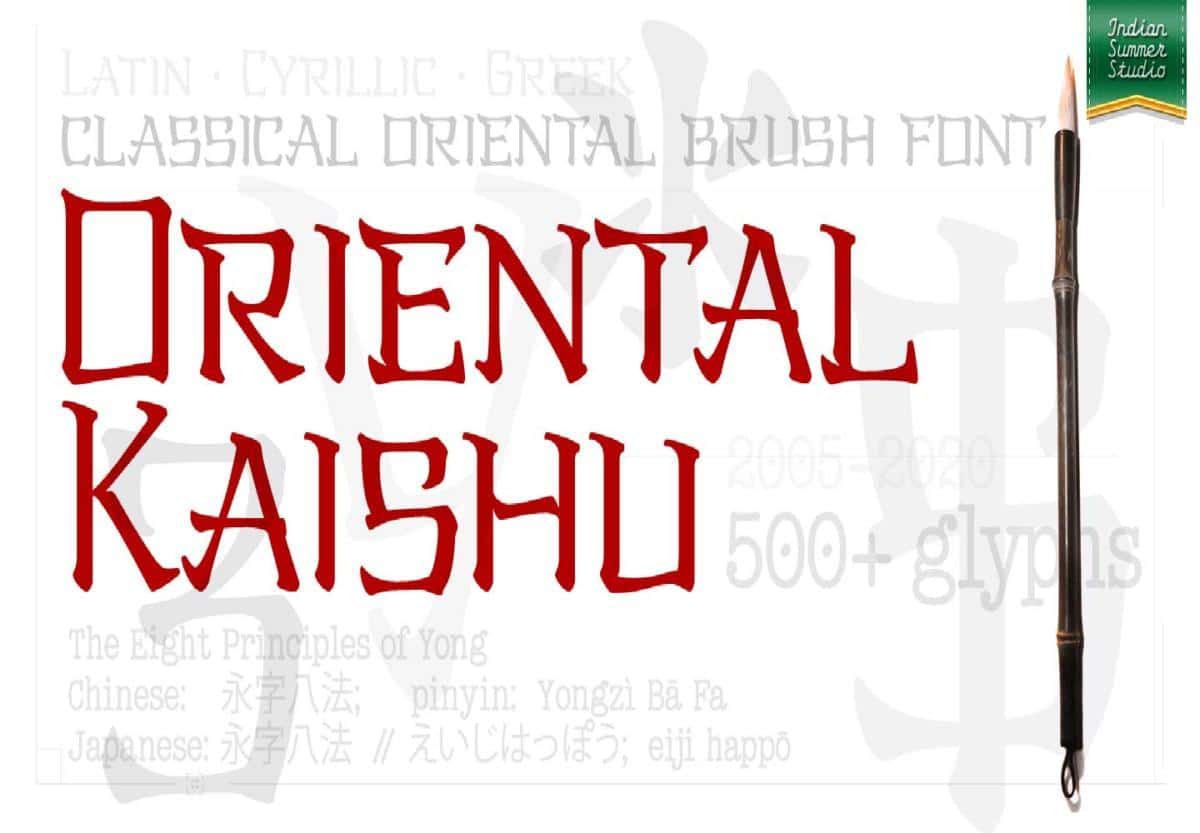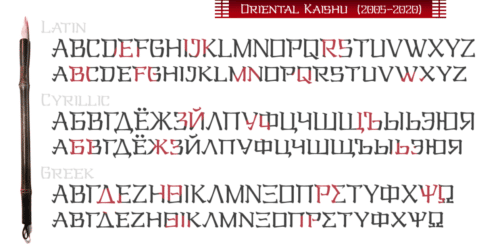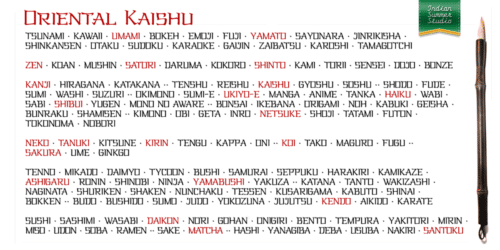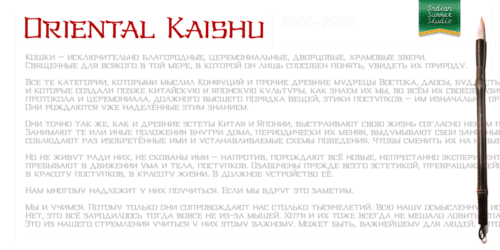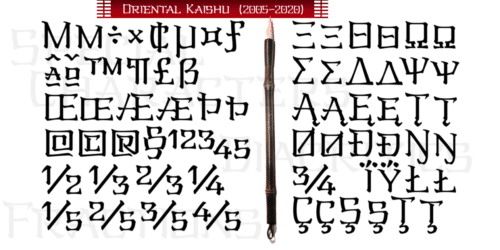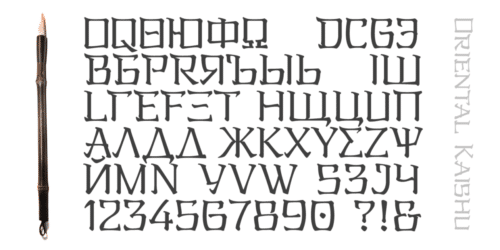
Oriental Kaishu Font is Classical Oriental brush font Western Latin + Greek + Cyrillic typeface, created using the principles of Chinese traditional Kaishu brush script (Kaisho in Japanese) and Japanese kana.
There are different oriental styles in this project, first of them was developed in 2005 for orientalist community Oriental.ru.
- Designer: Alexander Bobrov